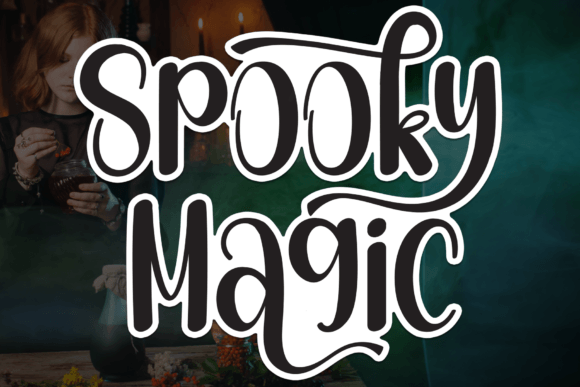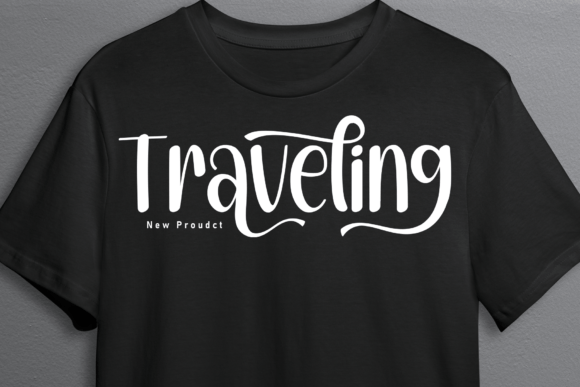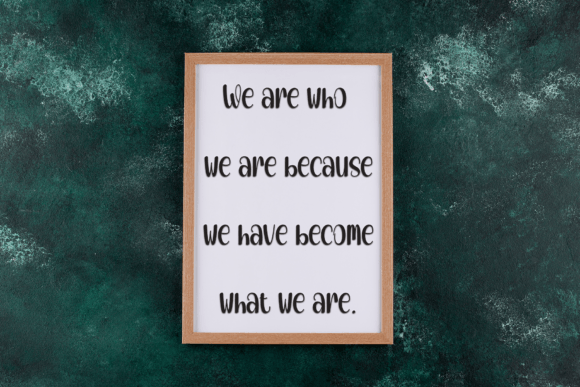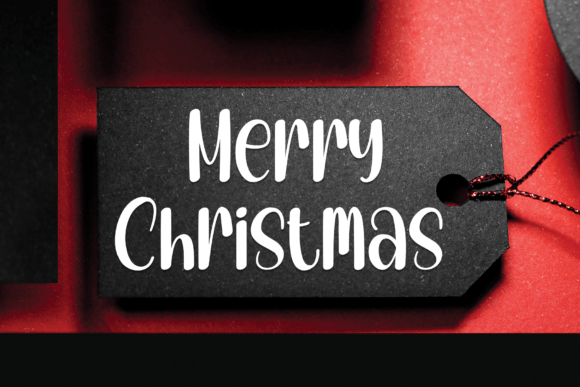
Spooky Magic Font
About the Spooky Magic Font
Presenting Spooky Magic Font, a unique and stylish typeface that will make your work stand out. Spooky Magic is a modern handwritten script. This font looks natural, stylish, and perfect for any extraordinary project that requires a handwritten feel. Its versatile style looks lovely on wedding invitations, thank you cards, quotes, greeting cards, logos, business cards, and every other design that needs a customized touch.
Spooky Magic Font Usage Examples
Spooky Magic Font Example